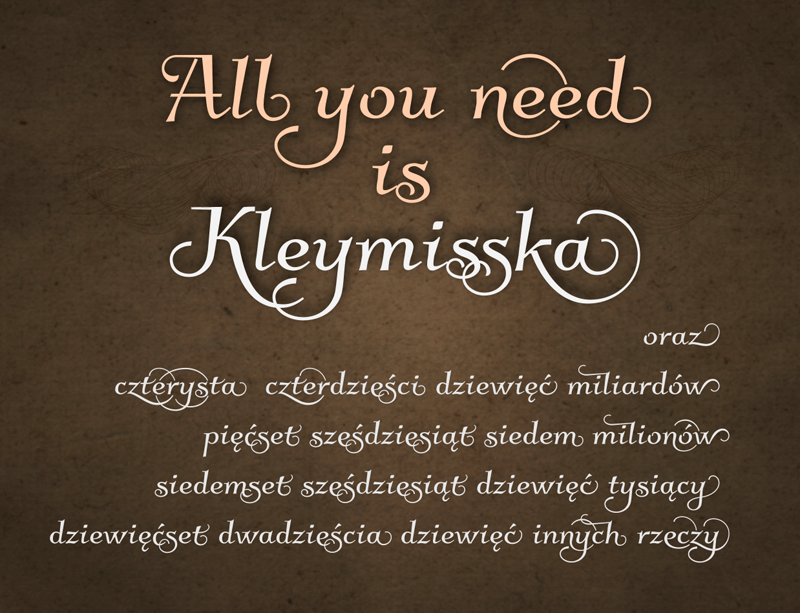
Cur�sive, dec�o�ra�tive font Kleymis�ska with con�textual Alter�nates, Lig�a�tures, ini�tial and ter�minal Forms (as con�textual Alter�nates). Font is newer, bold ver�sion of font Kleymis�sky |